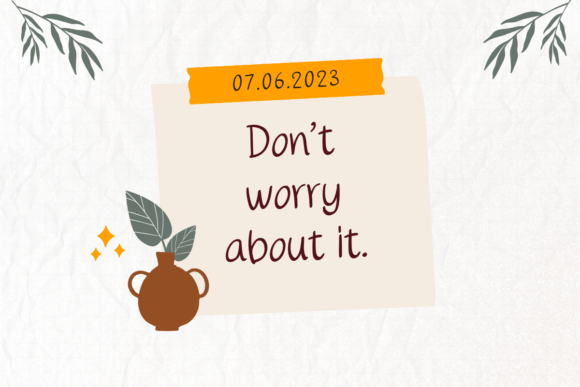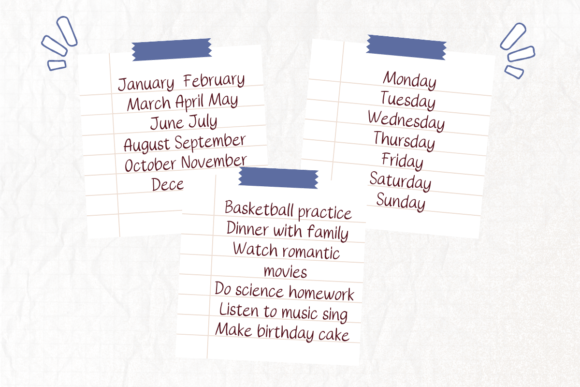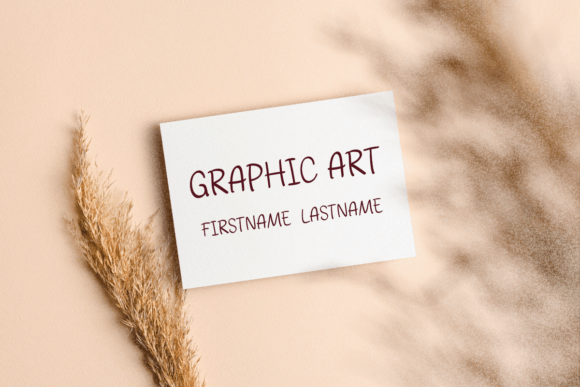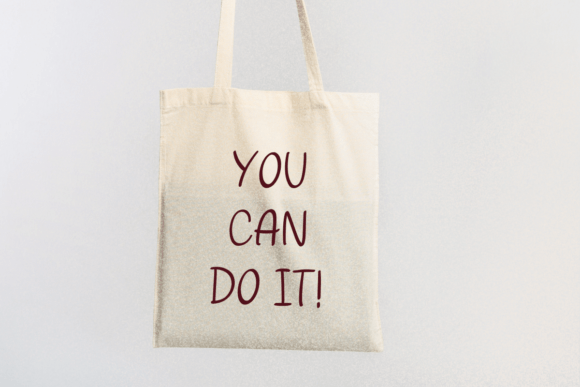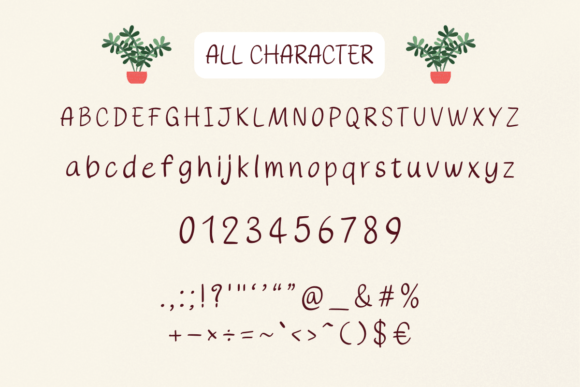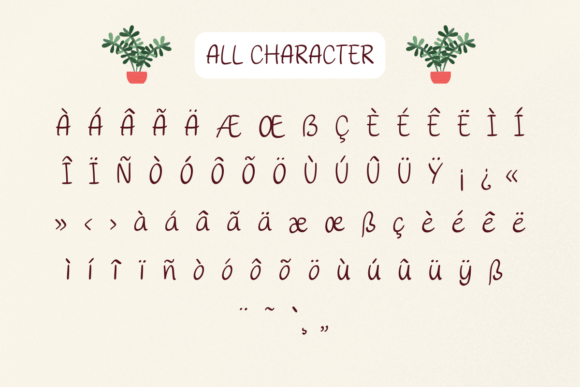
The Daily Plans Font: A Cute and Versatile Addition to Your Design Toolbox
I’ll never forget the time I was working on a last-minute project for a client who needed a custom design for their kid’s birthday party. I was struggling to find the perfect font that would match the playful and whimsical theme of the party. That’s when I stumbled upon the Daily Plans font, and it instantly became the centerpiece of my design. In this article, I’ll share with you why I love this font, its features, and how you can use it in your designs.
A Personal Review: What I Love About Daily Plans Font
The Daily Plans font is a simple yet charming handwritten font that has won my heart. Here are some things I love about it:
- ✨ Cute and playful: The font has a playful and whimsical feel to it, making it perfect for designs that require a personal touch.
- ✅ Versatile: Daily Plans font can be used in a variety of applications, from crafts for kids to greeting cards and more.
- ✨ Easy to read: Despite its playful nature, the font is easy to read, even in smaller sizes.
While I love the Daily Plans font, there are a few quirks to be aware of:
- ⚠️ Limited character set: The font may not have an extensive character set, which can limit its use in certain designs.
- 🤔 Not suitable for body text: Due to its playful nature, Daily Plans font may not be the best choice for body text, especially in larger blocks of text.
One of the best things about the Daily Plans font is its OpenType features and glyphs. Here are a few tips on how to use them:
- Stylistic alternates: Daily Plans font comes with stylistic alternates that allow you to switch between different font styles.
- Glyphs: The font also comes with a range of glyphs, including punctuation marks and symbols.
The Daily Plans font was designed with the intention of creating a simple yet charming handwritten font that could be used in a variety of designs. The designer wanted to create a font that was easy to read and versatile, making it perfect for designers, crafters, and creative hobbyists.
| What is the Daily Plans font? | The Daily Plans font is a cute and versatile handwritten font perfect for designs that require a personal touch. |